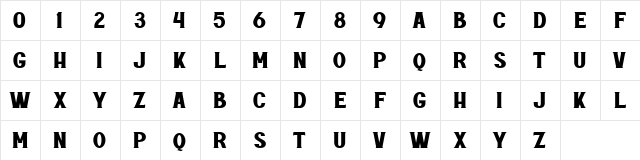
Rottely Free Personal Use Regular
| Designer | Muhammad Romzul Khoir |
Design Context for Rottely Free Personal Use Typeface
Rottely Free Personal Use takes a measured approach to typography — its balanced proportions and neutral character make it a reliable workhorse for both digital and print work.